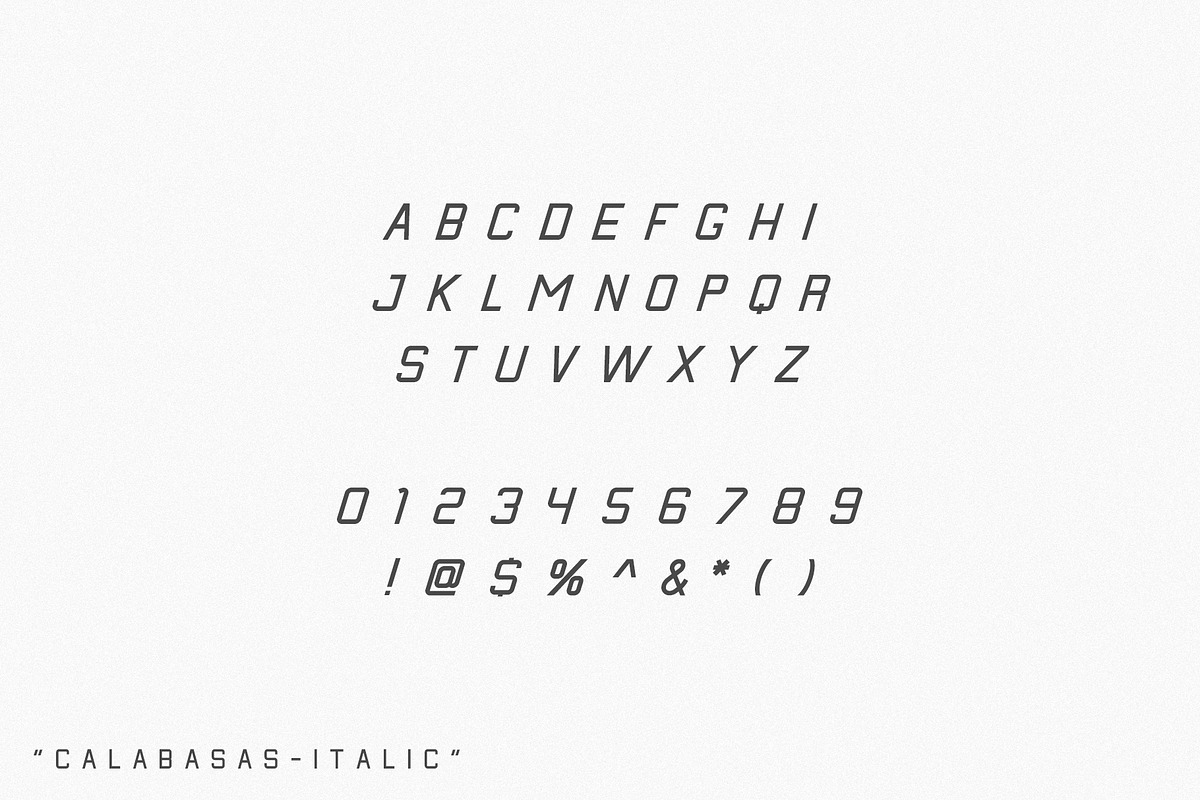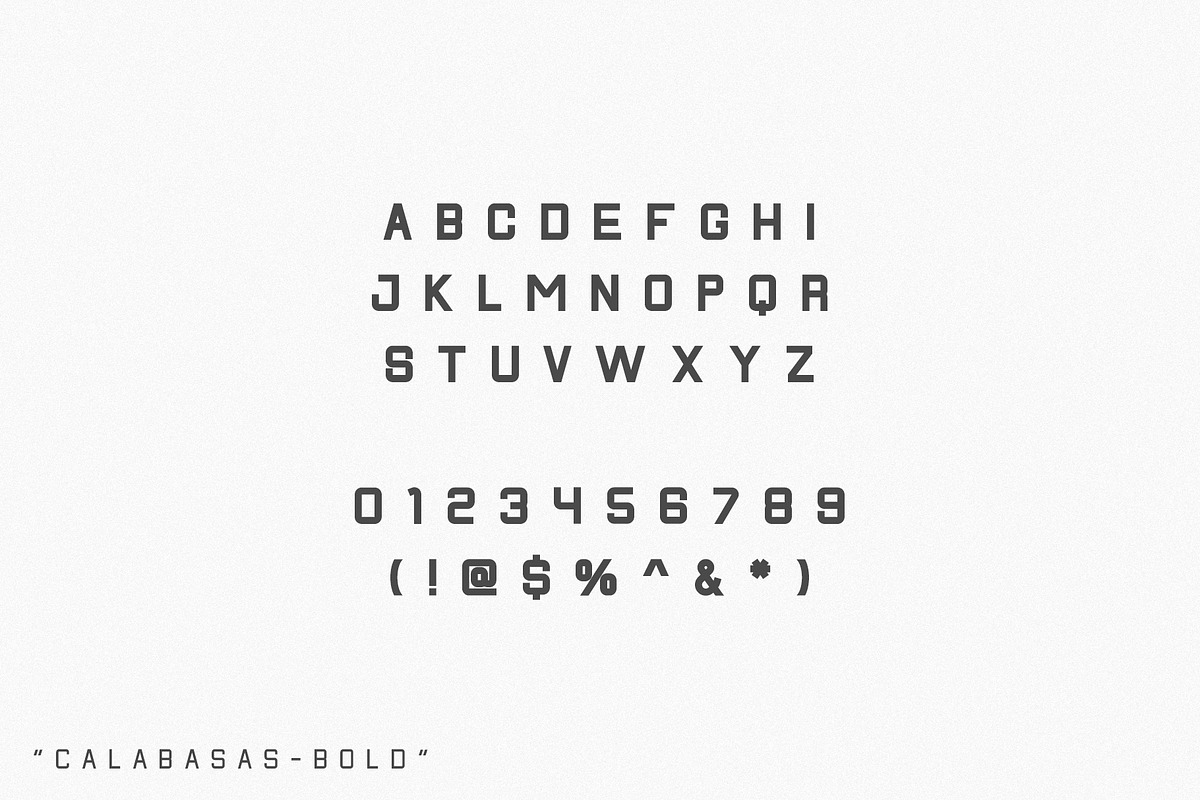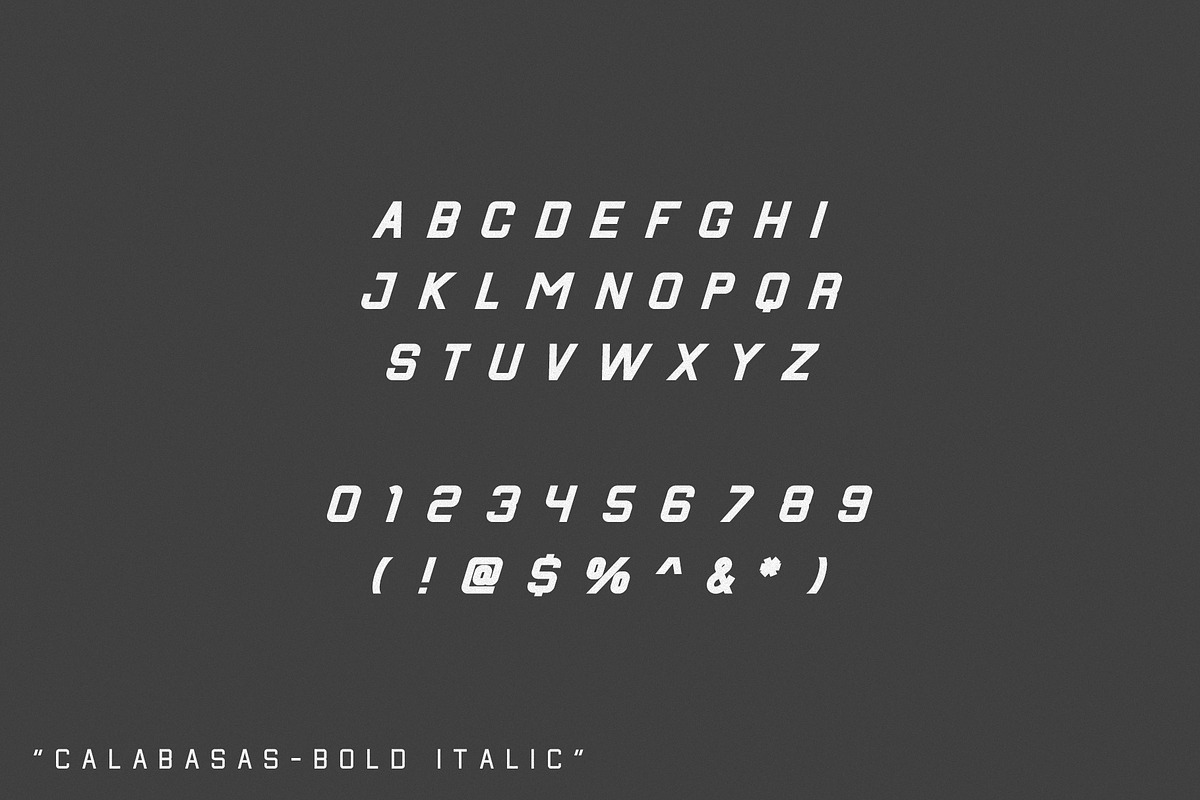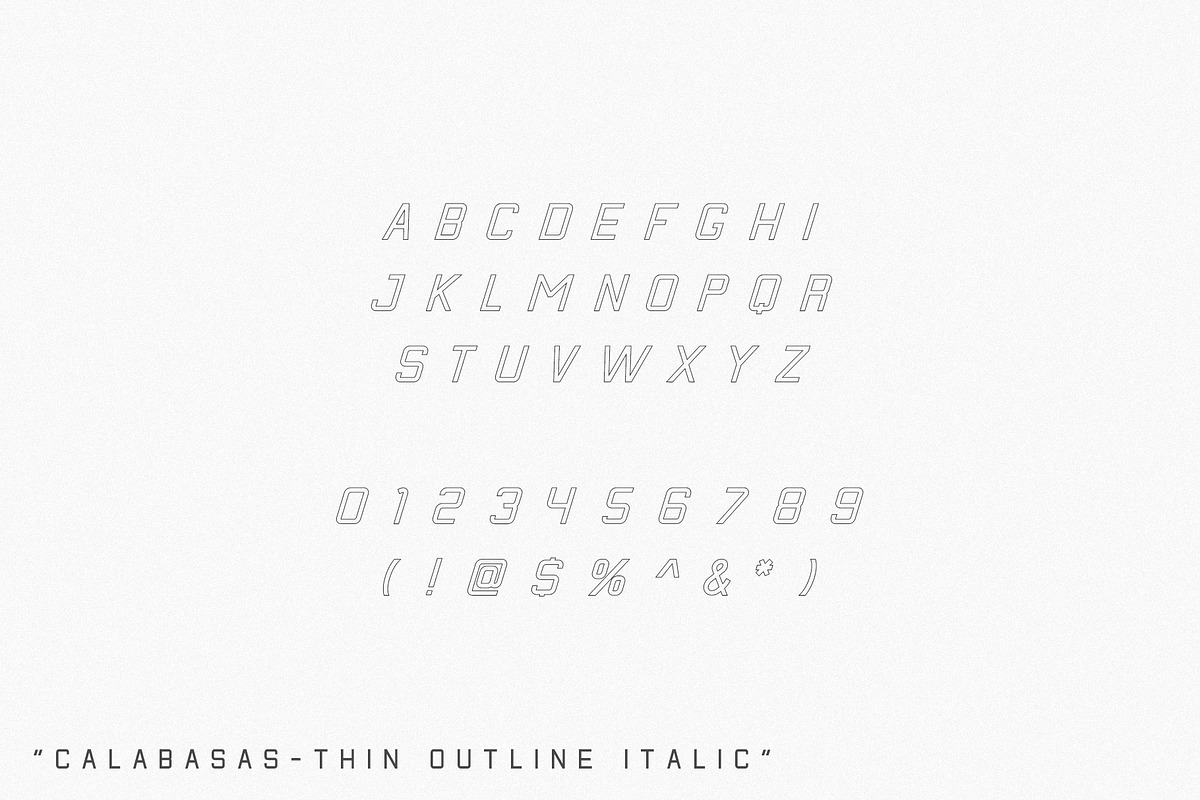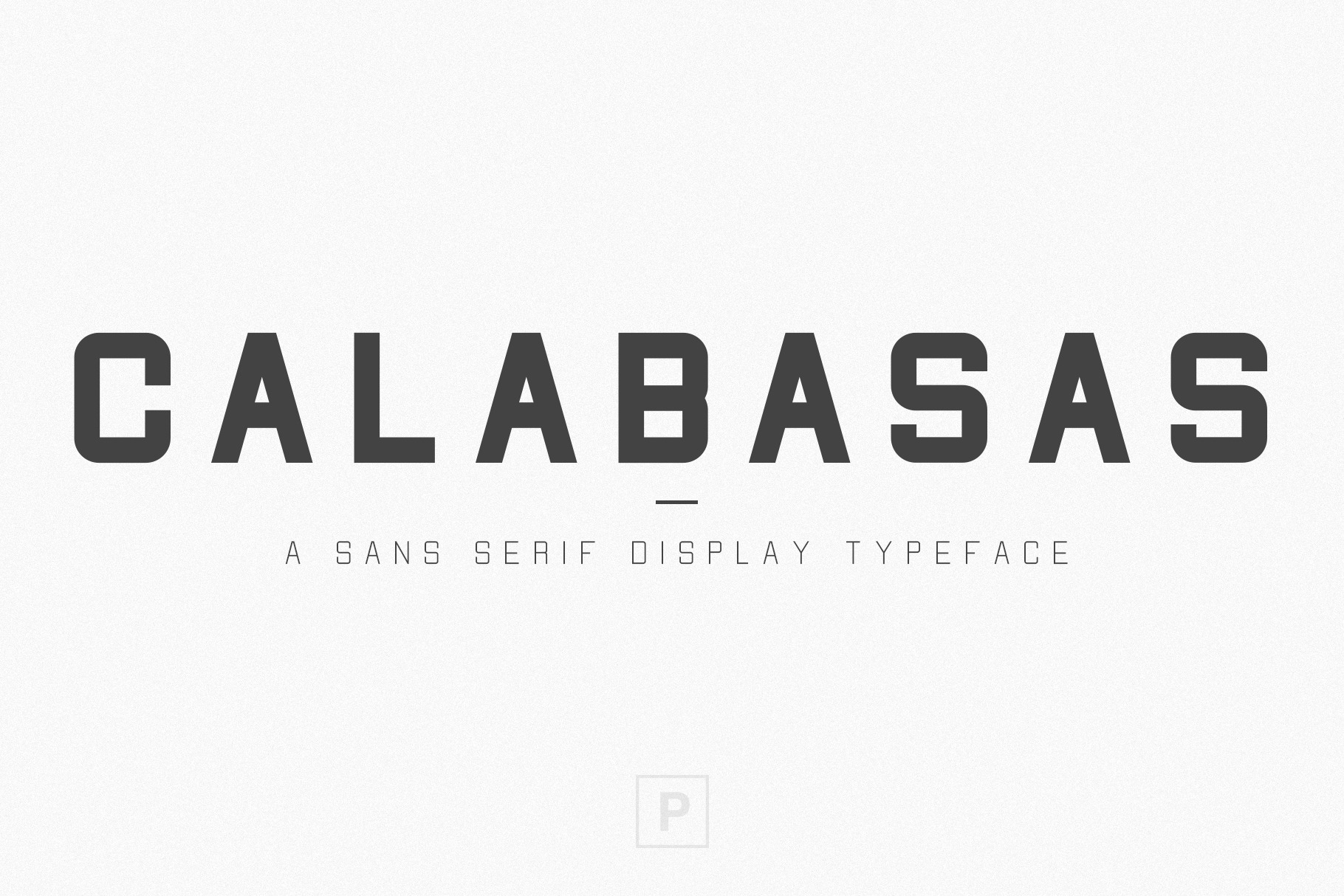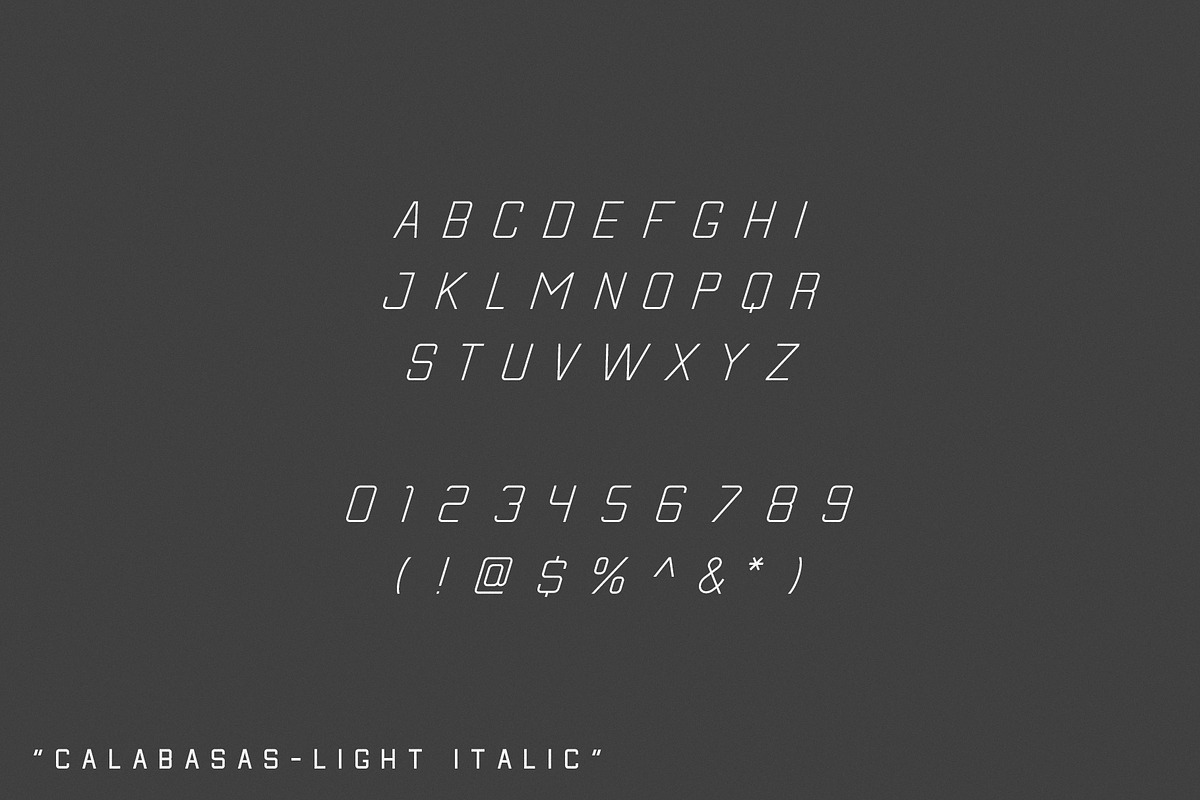
Calabasas | Display Font Family
CALABASAS is a clean, fresh, sans-serif font family inspired by lifestyle, exploration and vintage aesthetics. Sharp edges and smooth curves make using Calabasas a breeze. Use it in press images, magazines, branding, advertising or anything you want.
- 3 weights + 2 outlined versions
- All caps font family
- Numbers, punctuation & symbols